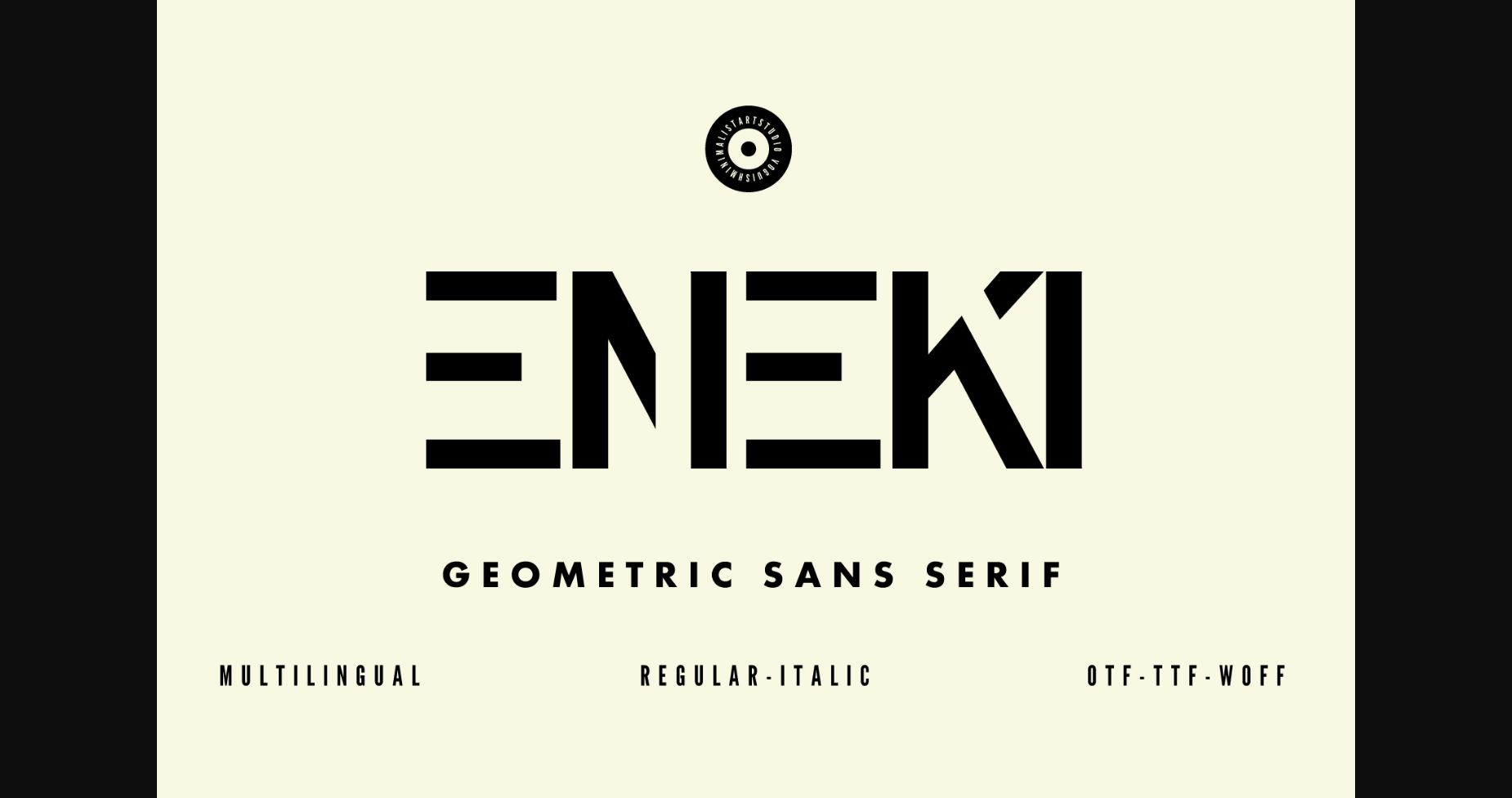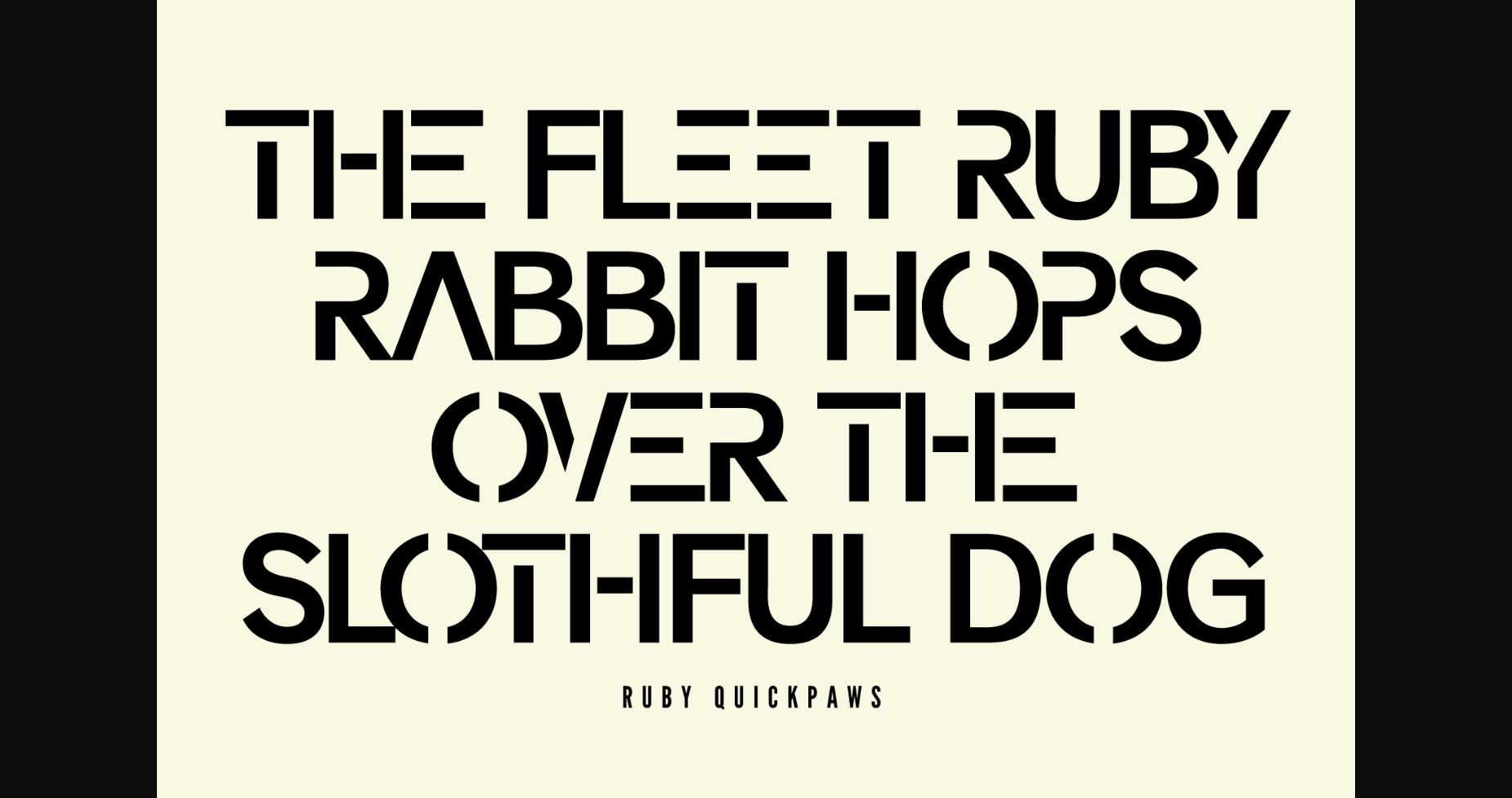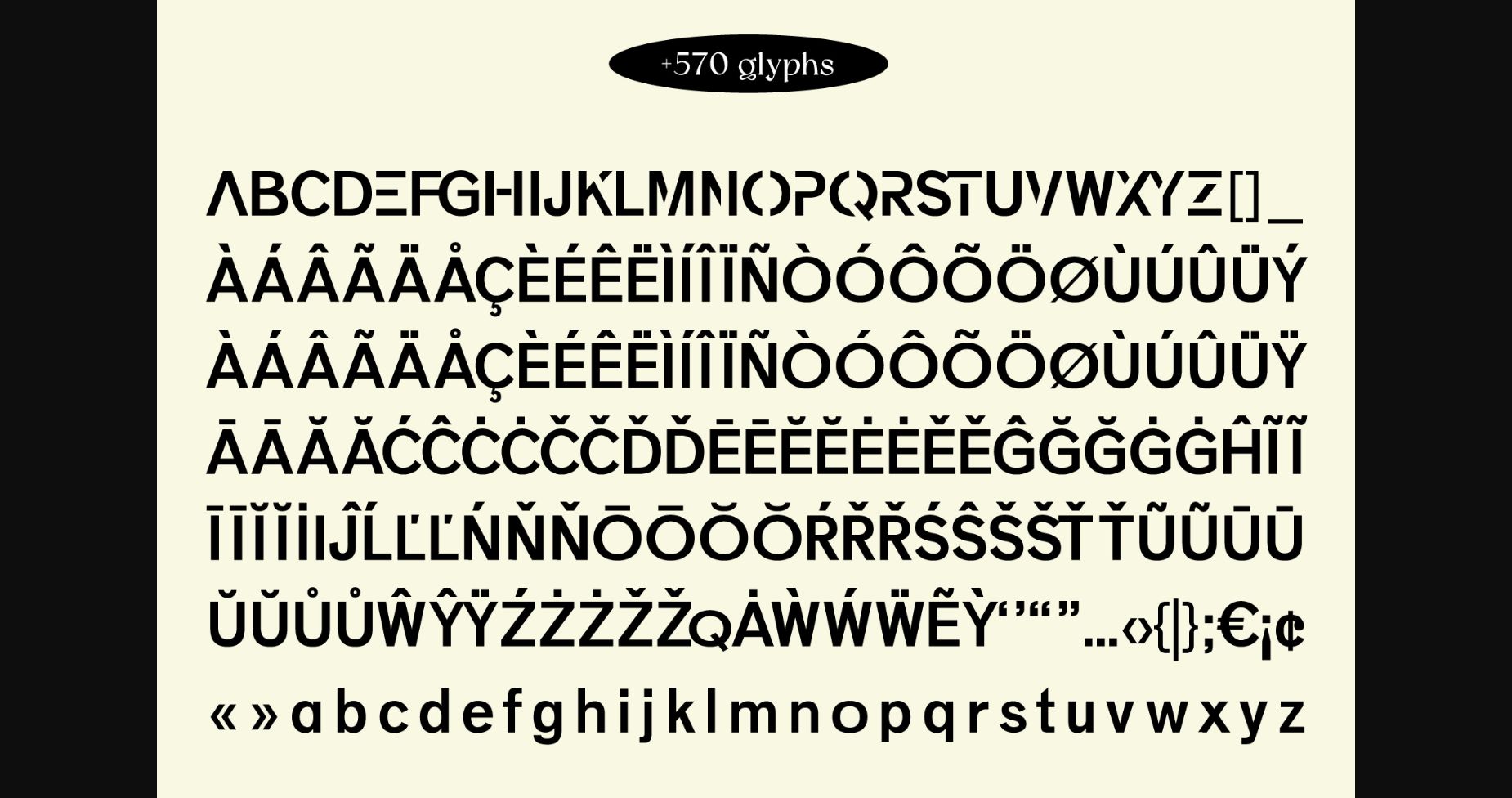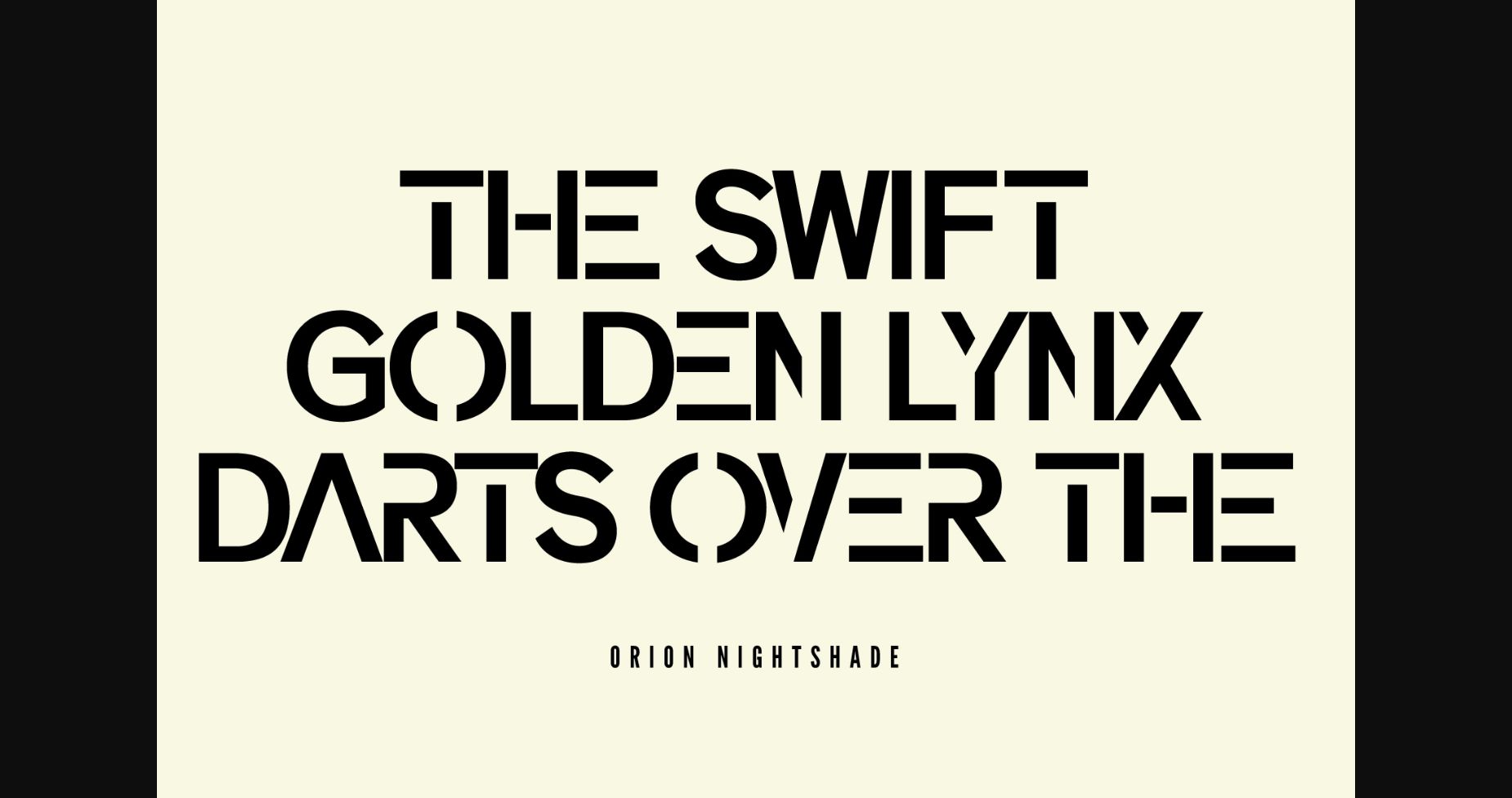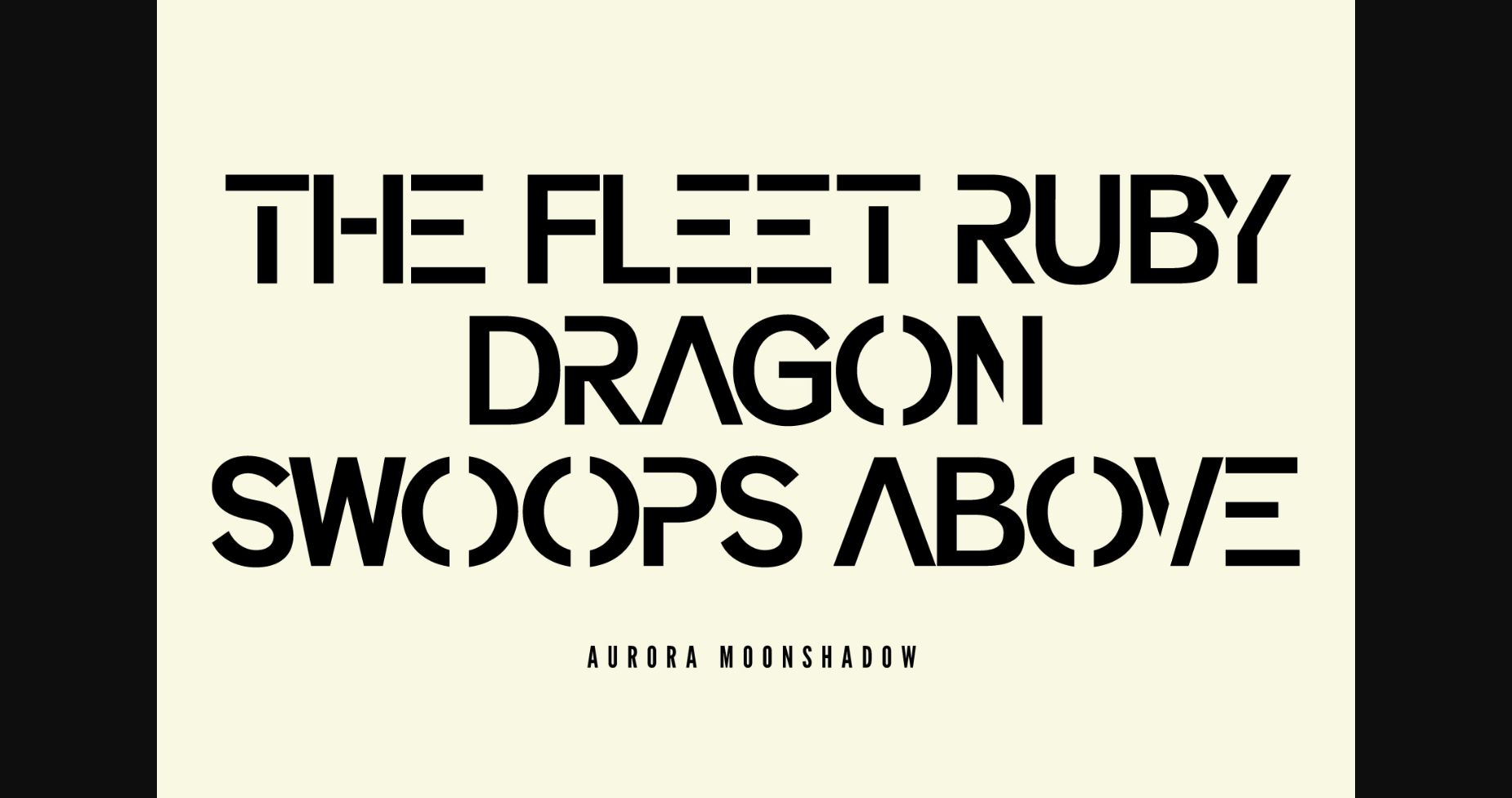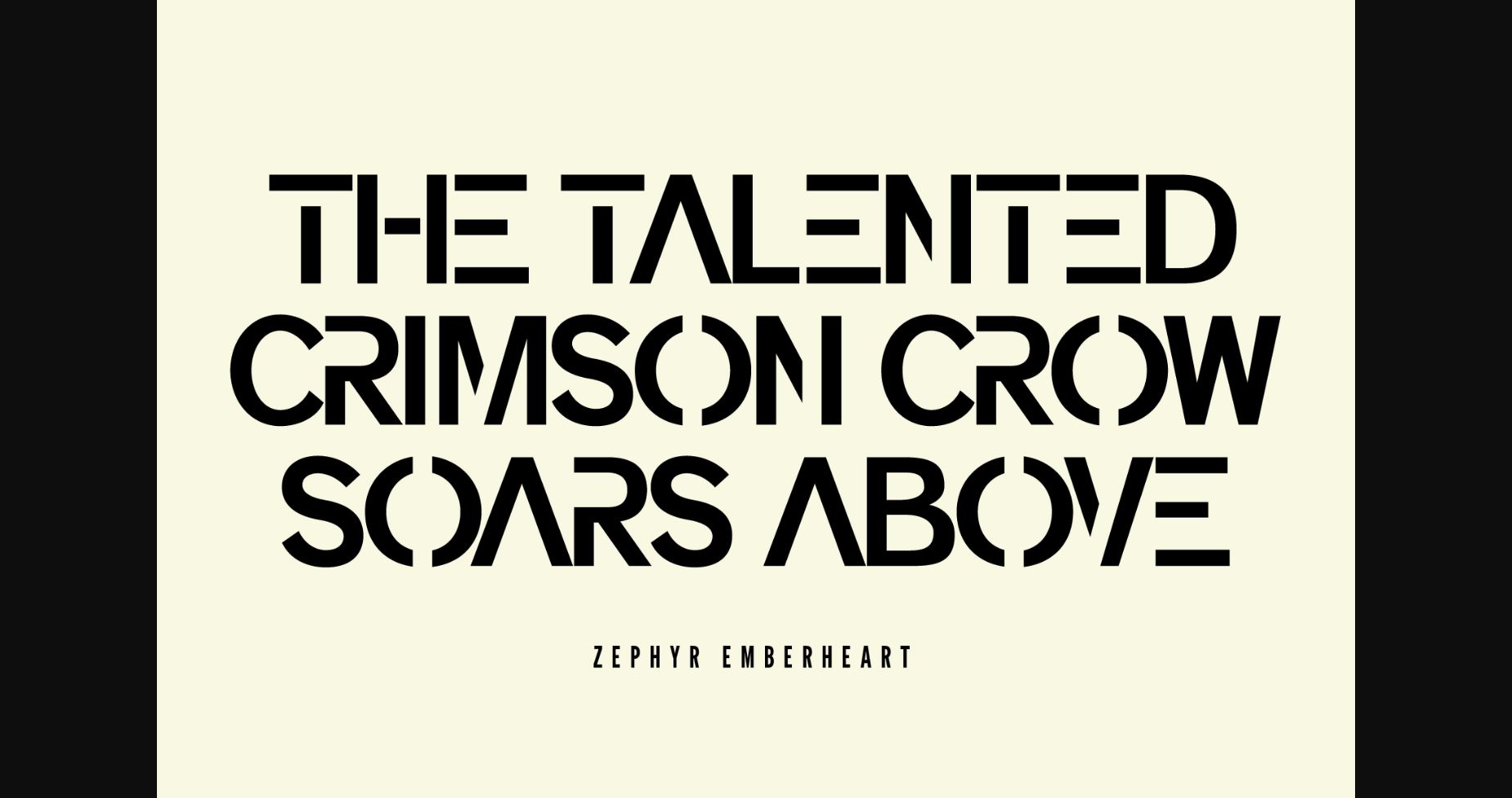
About Eneki Font
ENEKI is a minimalist, chic, and modern sans serif grotesque typeface that exudes timeless simplicity and sophistication. Its sleek lines and balanced design make it versatile for various projects, from professional presentations to eye-catching logos and marketing materials. With a wide range of weights and styles, ENEKI offers effortless customization, seamlessly integrating with digital and print platforms. Embrace the essence of modern elegance and elevate your designs with the captivating charm of ENEKI, unlocking the potential of refined aesthetics for your summer projects.